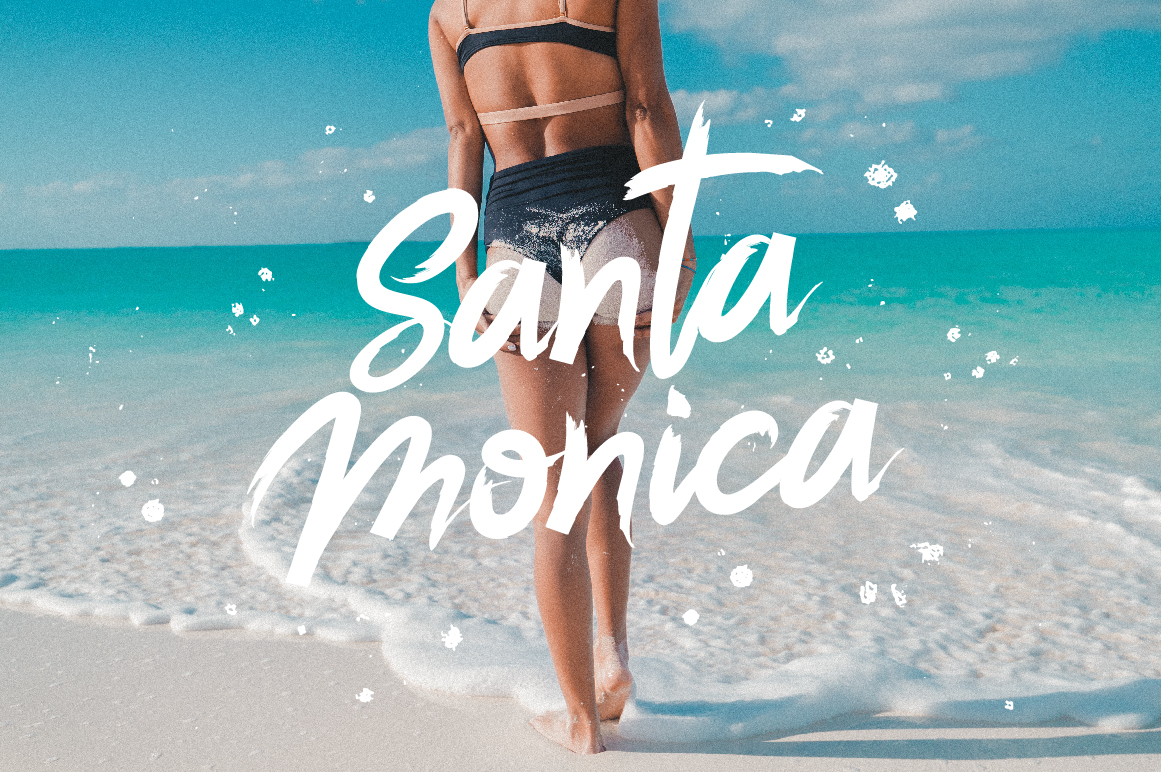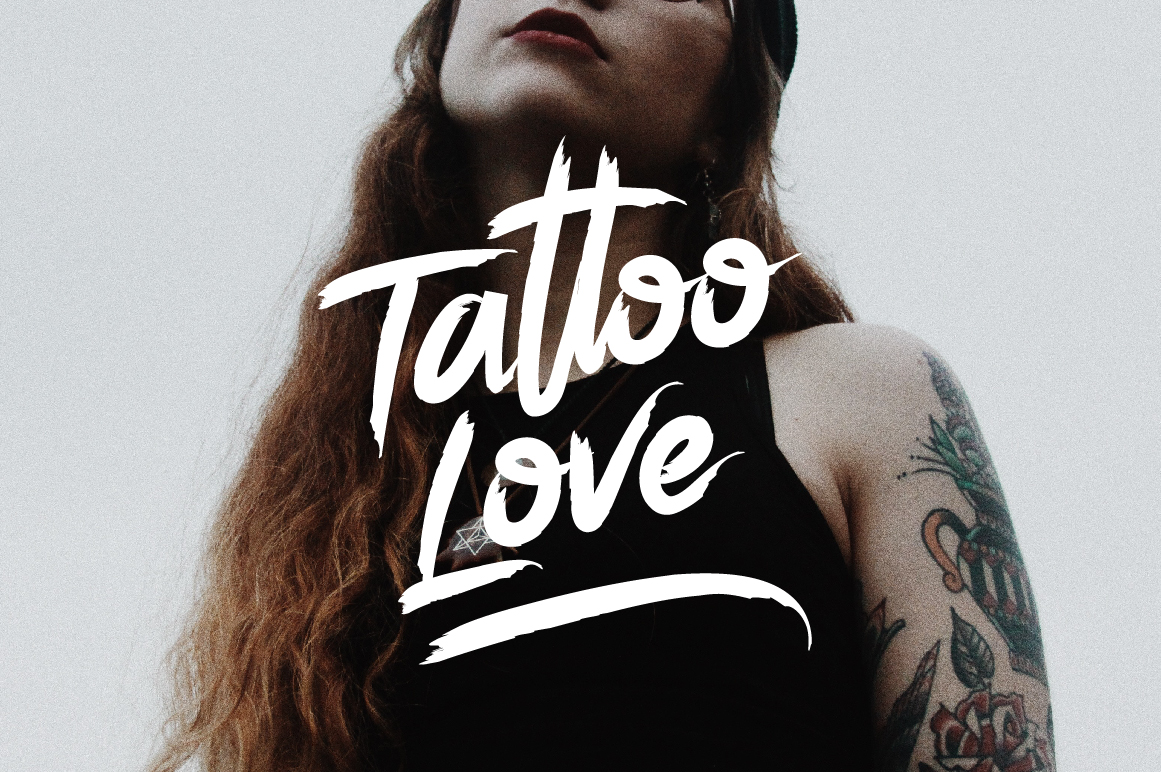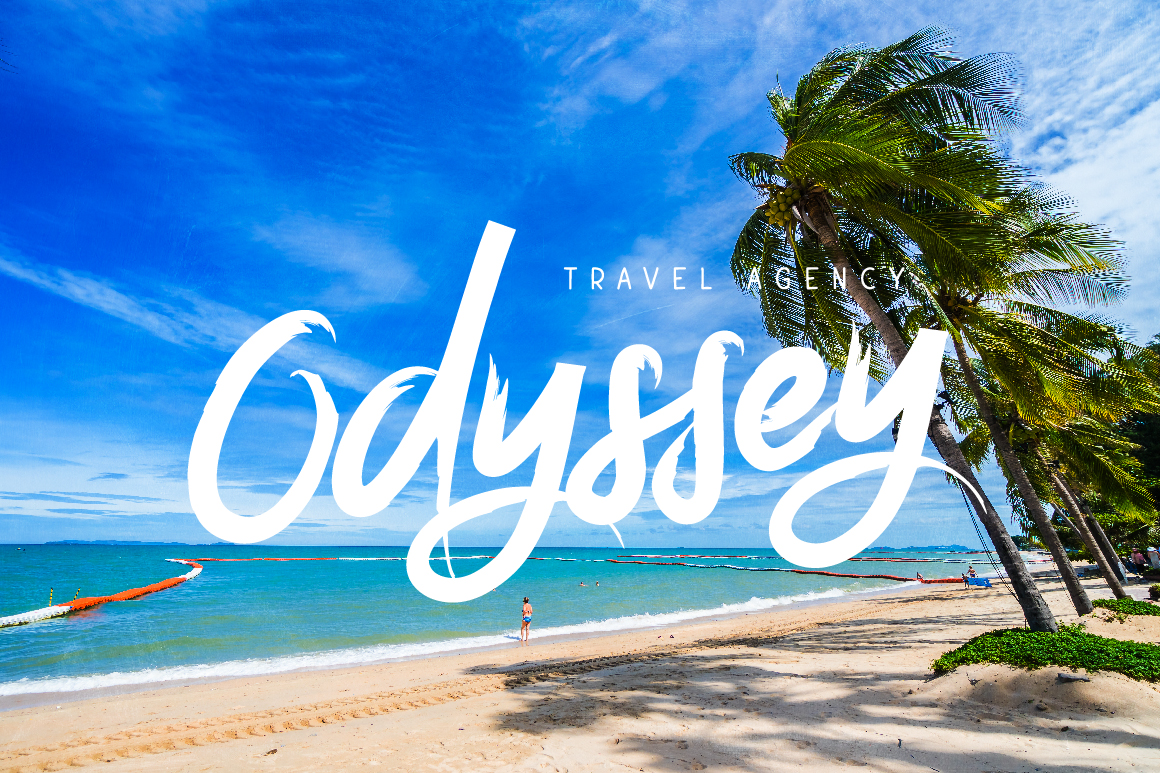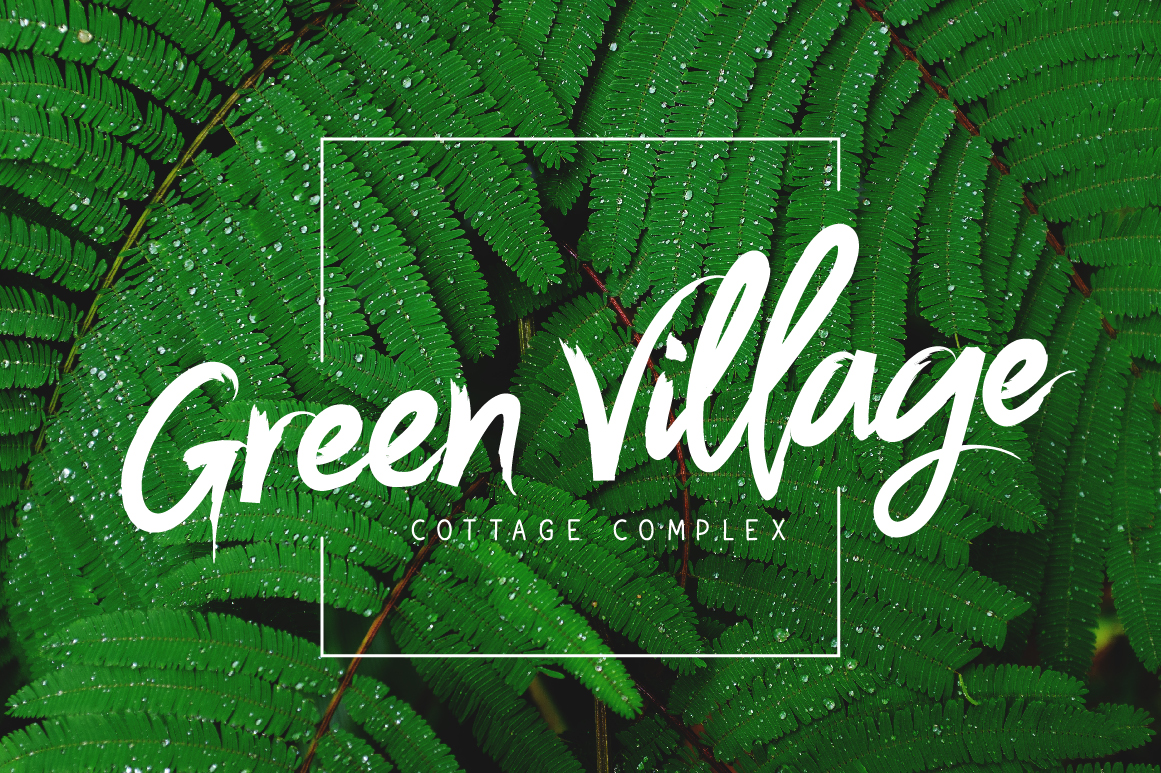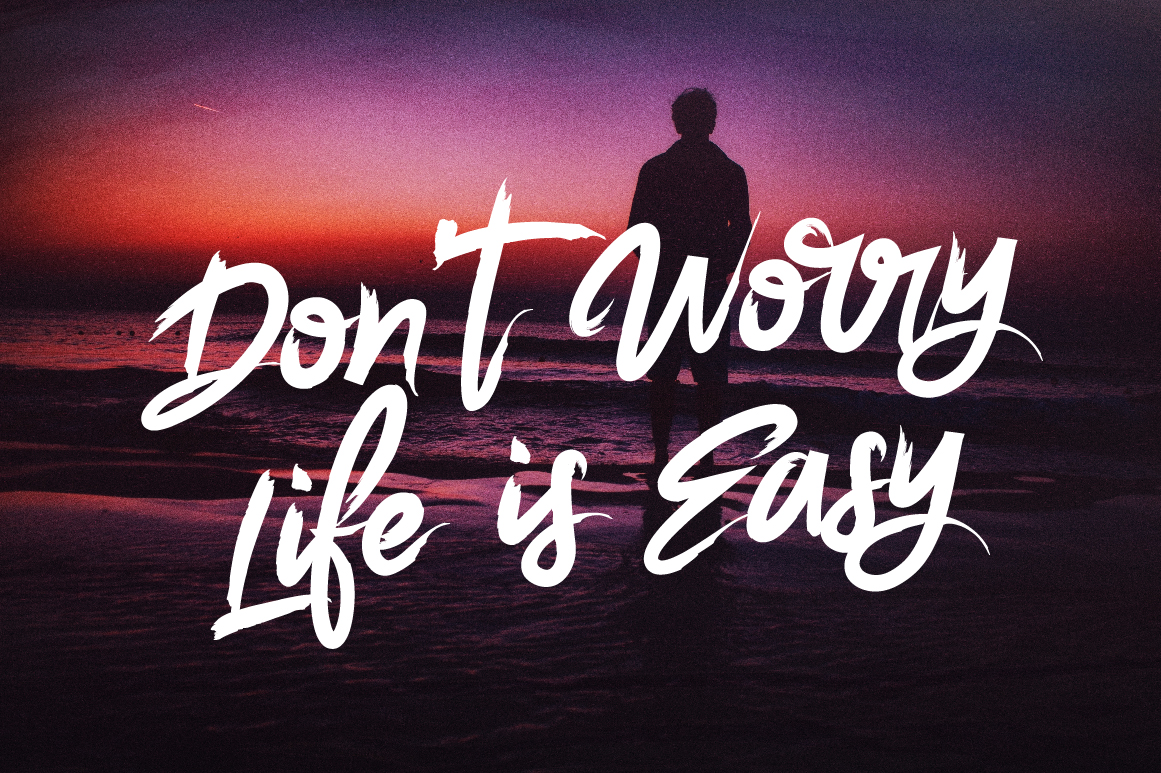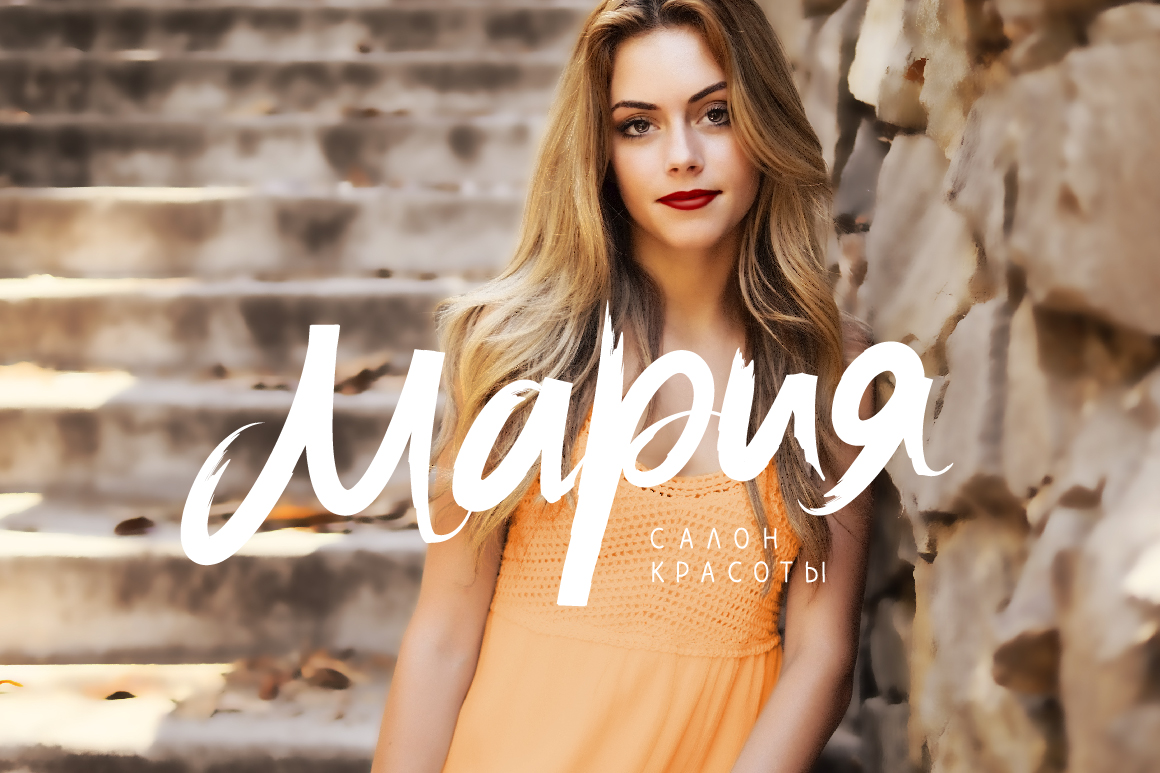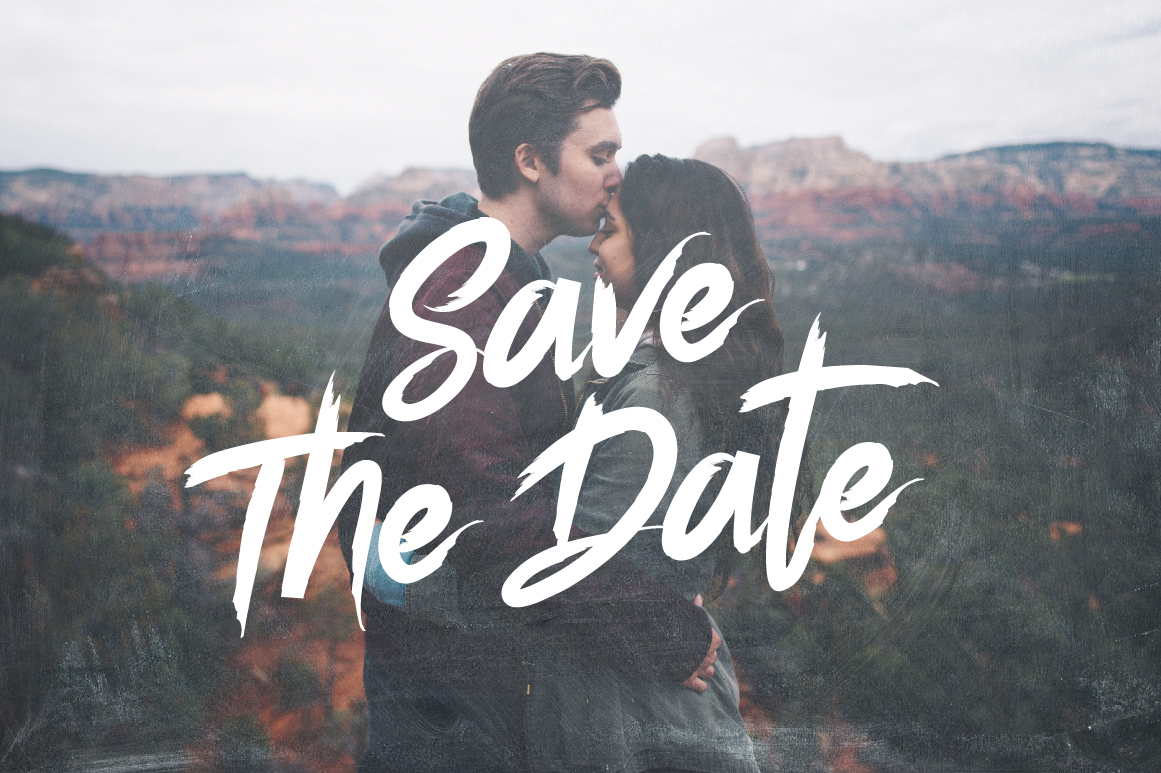
Mr. Lonely Font
About Mr. Lonely Font
Mr. Lonely is a handmade brush font. It contains a full set of lower & uppercase letters, a large range of punctuation, numerals, ligatures, Cyrillic characters and has multilingual support.